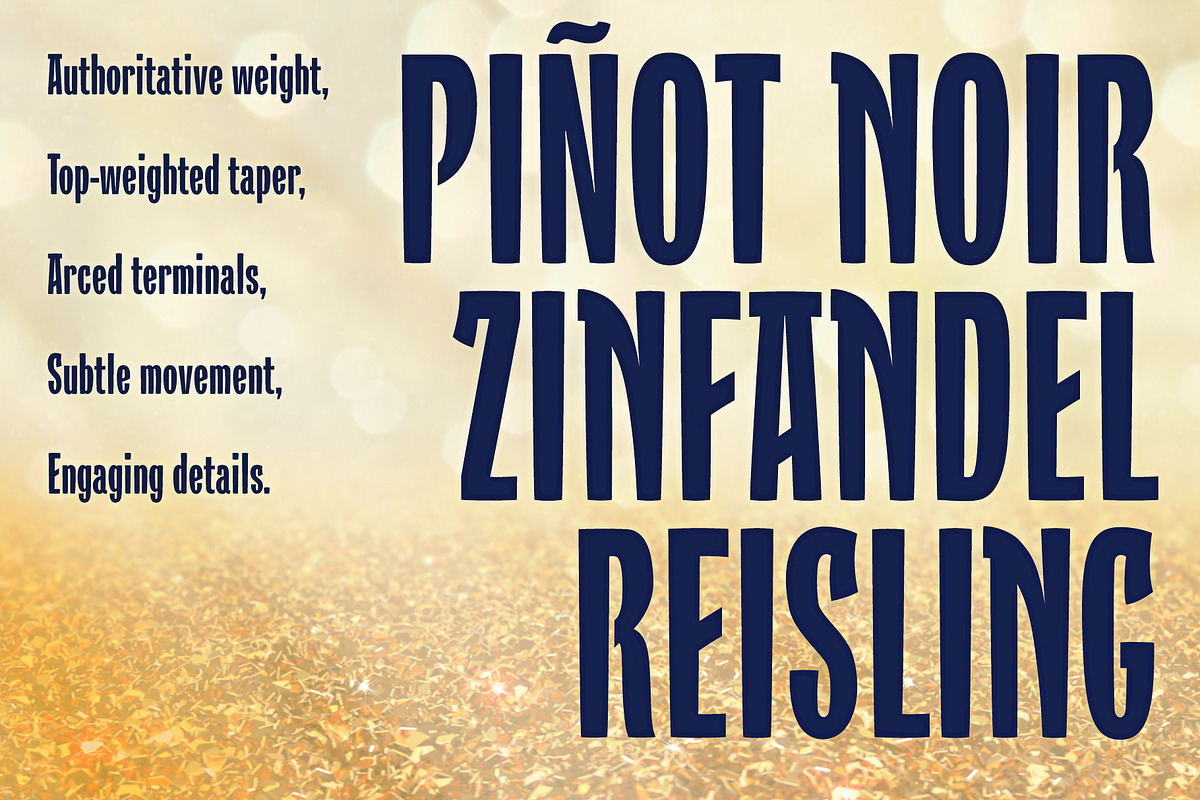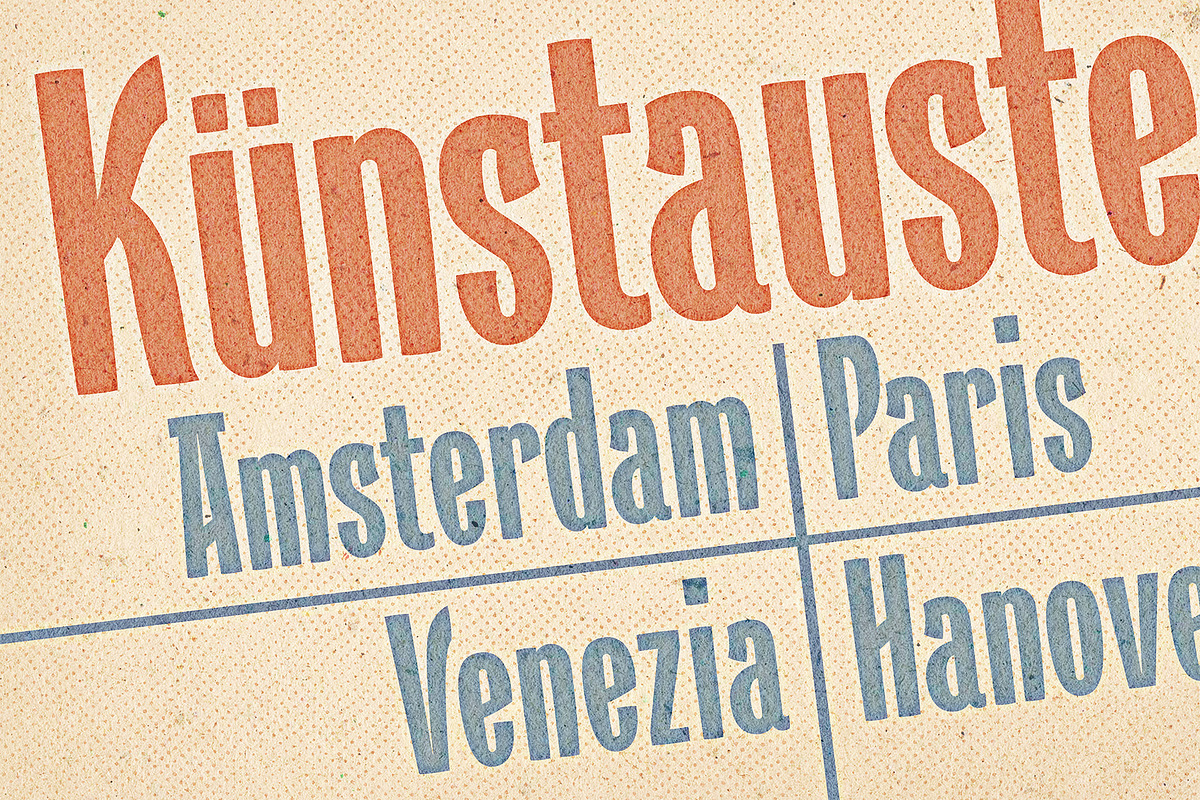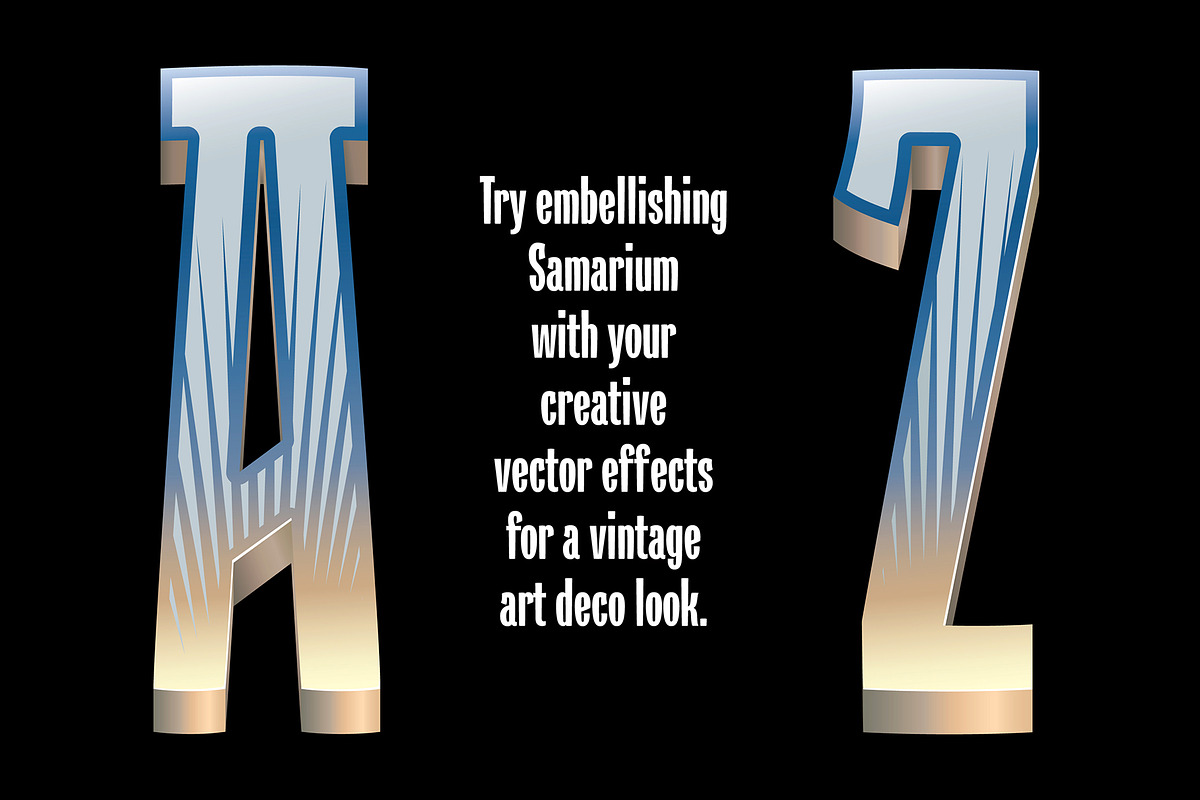
Samarium: A Bold Condensed Font
SAMARIUM A bold condensed sans serif
Samarium is a bold authoritative condensed font with an abundance of subtle and interesting attributes. Not your basic blocky sans serif, this font implements a number of unusual details, such as a top-heavy taper, arced terminals, some slanted — and some curved — crossbars and strokes, and more.
DIRECTOR'S CUT: THE STORY BEHIND THIS FONT
When I was designing fonts for ITC way back in the nineties, I ran an earlier version of this design by the eyes of the design committee at their [then] New York City office in Hammarskjold Plaza. They liked what they saw but wanted me to tone down some of the more outside-the-box elements, especially in the upper case character set. That more conservative version of the font was released as ITC Verkehr. Although I'm very proud of that font design, I consider Samarium to be the "director's cut” version of the font. In other words, it more closely matches my original vision. Enjoy!